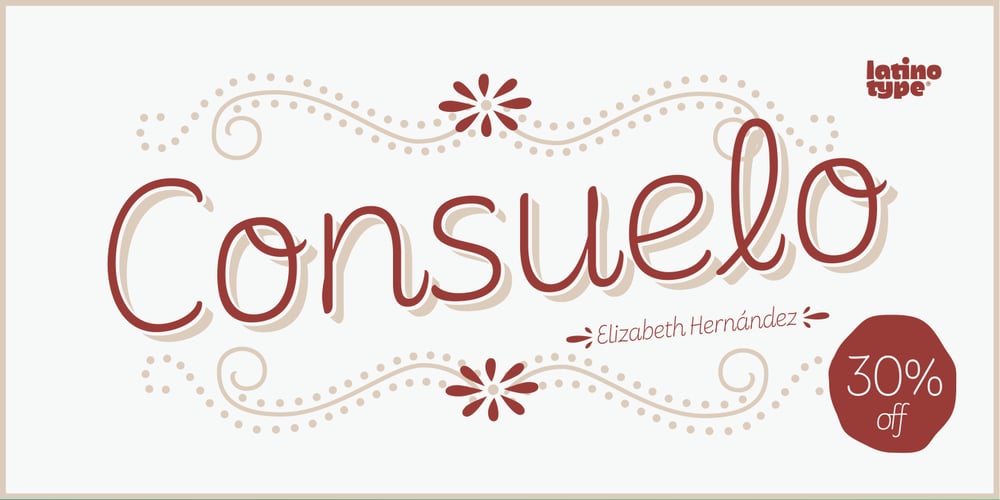
Consuelo Font Family was designed by Eli Hernández and published by Latinotype. Consuelo contains 9 styles and family package options. Consuelo a font inspired by brush strokes. The family consists of a set of 4 variants, with their respective italics, plus a set of ornaments that will give the designer multiple choices when composing texts. Consuelo is ideal to be used in decorative titles, short phrases, magazines, logotypes and advertising.